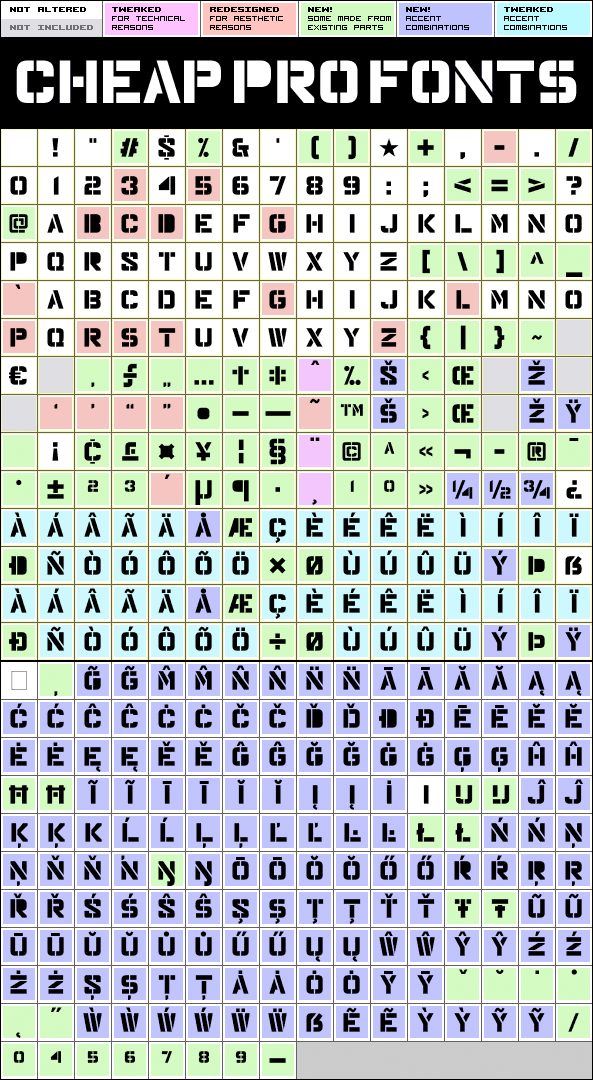
Major Snafu Pro
Major Snafu Pro by Vic Fieger
Designer:
Vic Fieger
Highlights:
385 glyphs!
(138 in original)
178 class kernpairs
= 3542 kerning pairs
(none in original)
Description:
Classic stencil typeface. Please note many of the letterforms come in two versions - some of the Uppercase letters are filled in while the lowercase letters are open, and there are also other variations to play with. Ten shun!
Vic Fieger says: "Pretty good for a mostly squarish font. Often an entire font can arise from drawing just a single letter. In this case, it was the A."
Major Snafu Pro is a professionally reworked font that contains an extended character set for setting text in 65 languages requiring more than the basic A-Z!